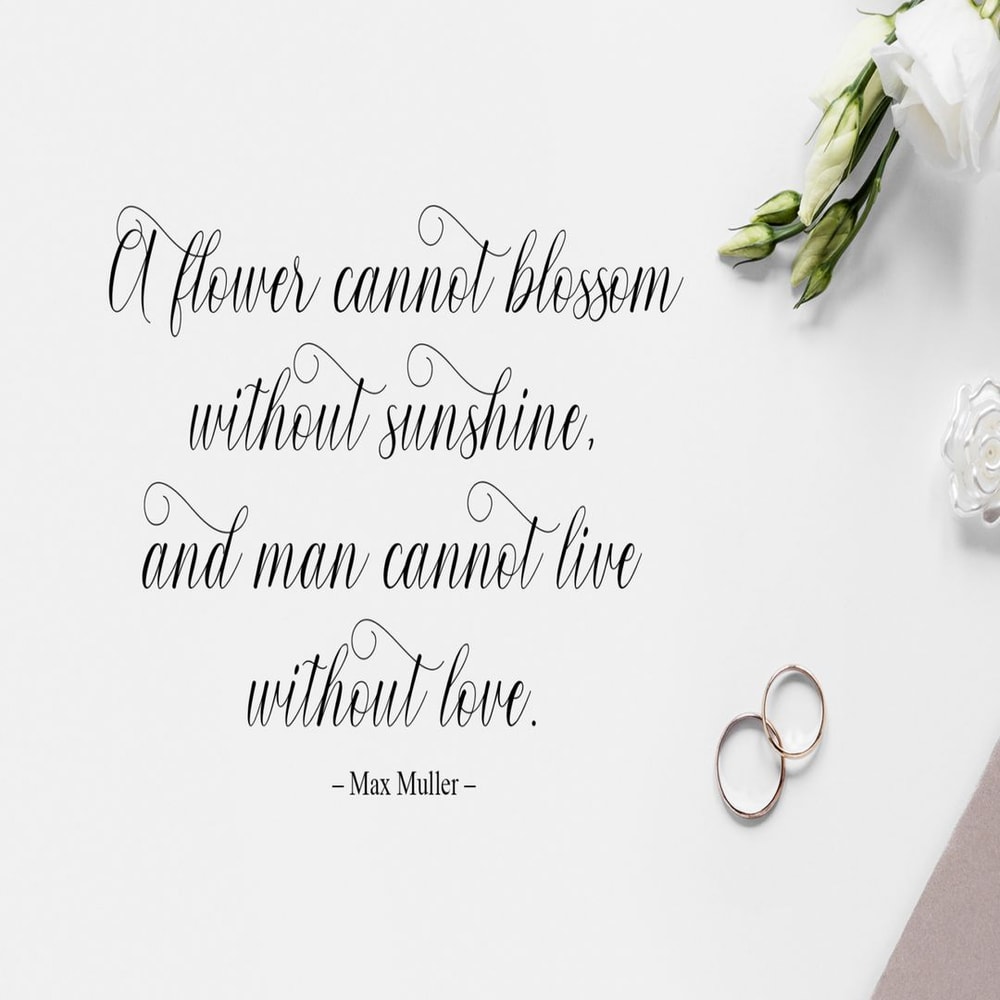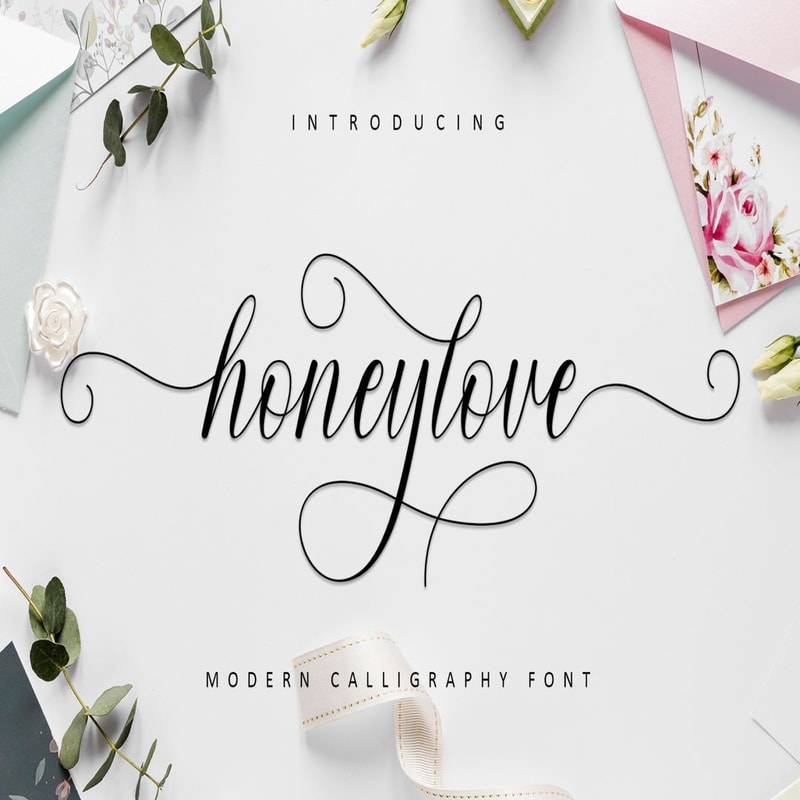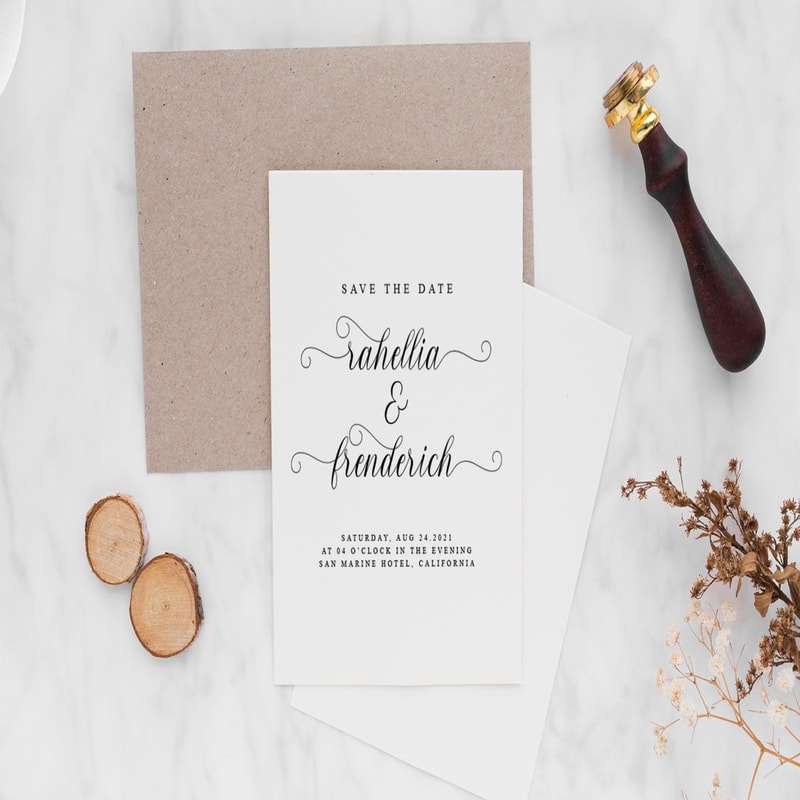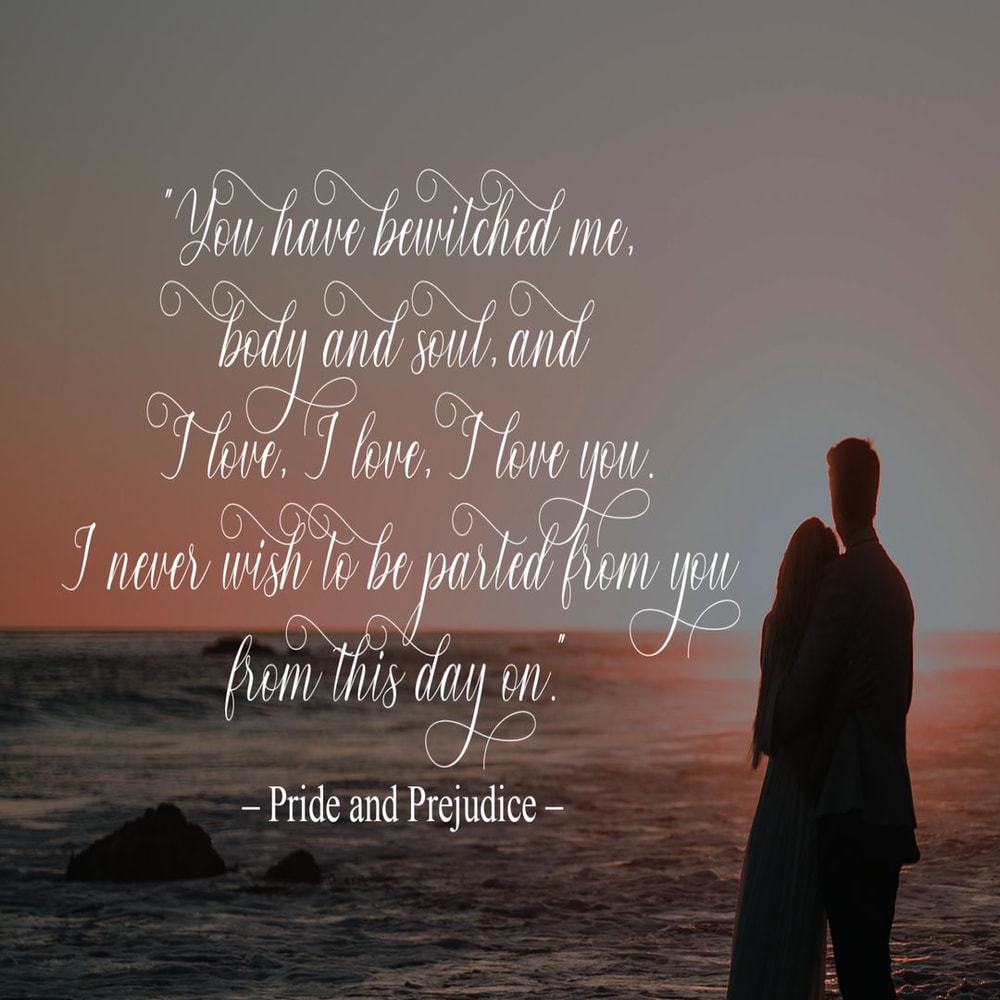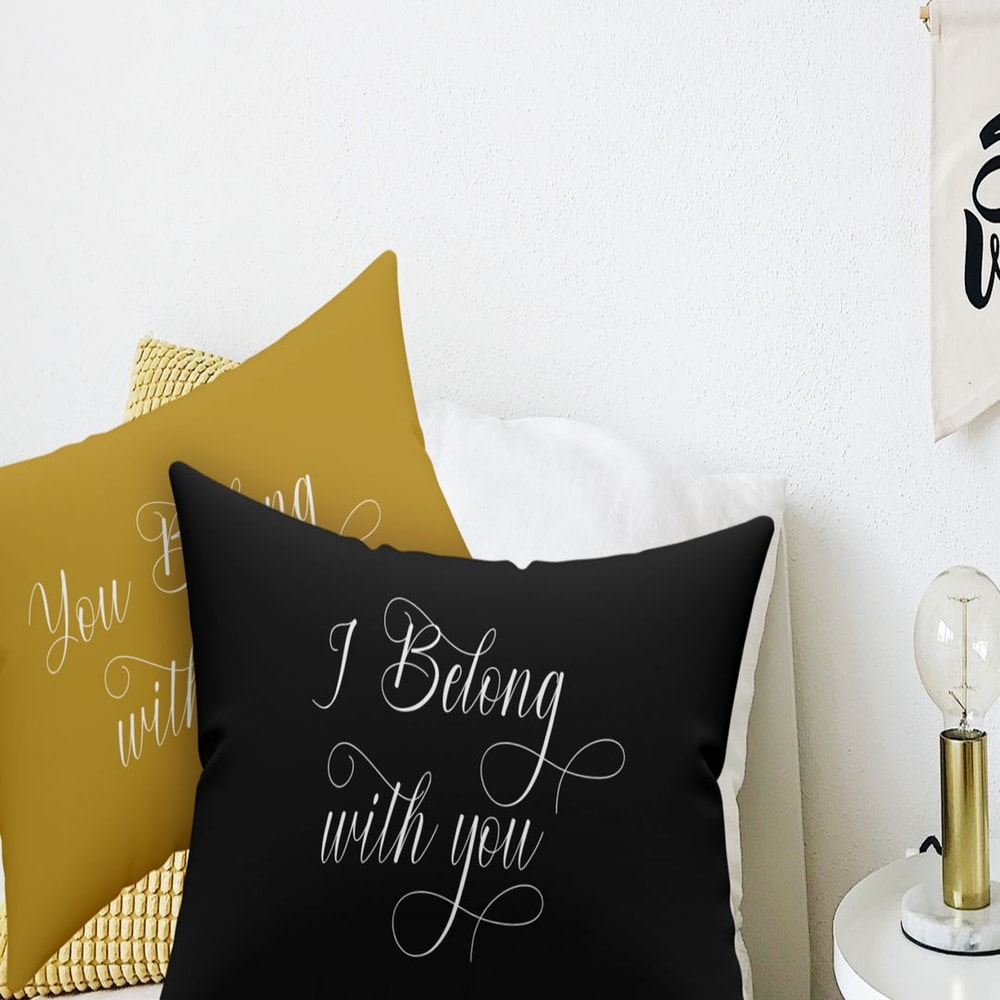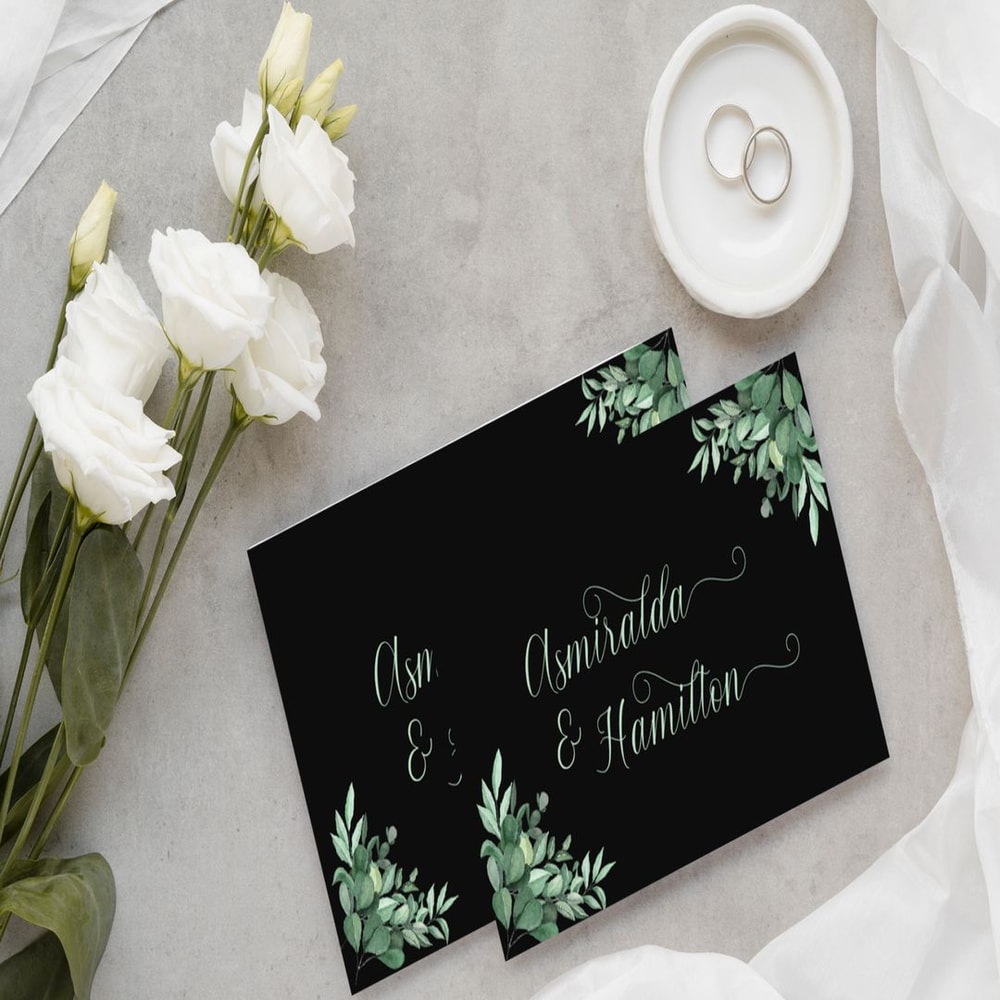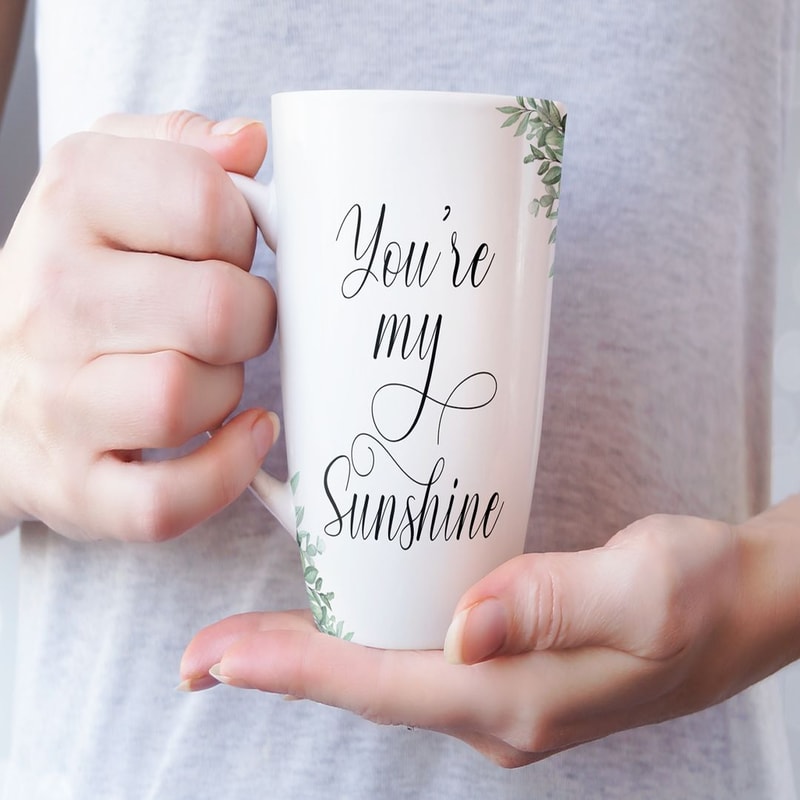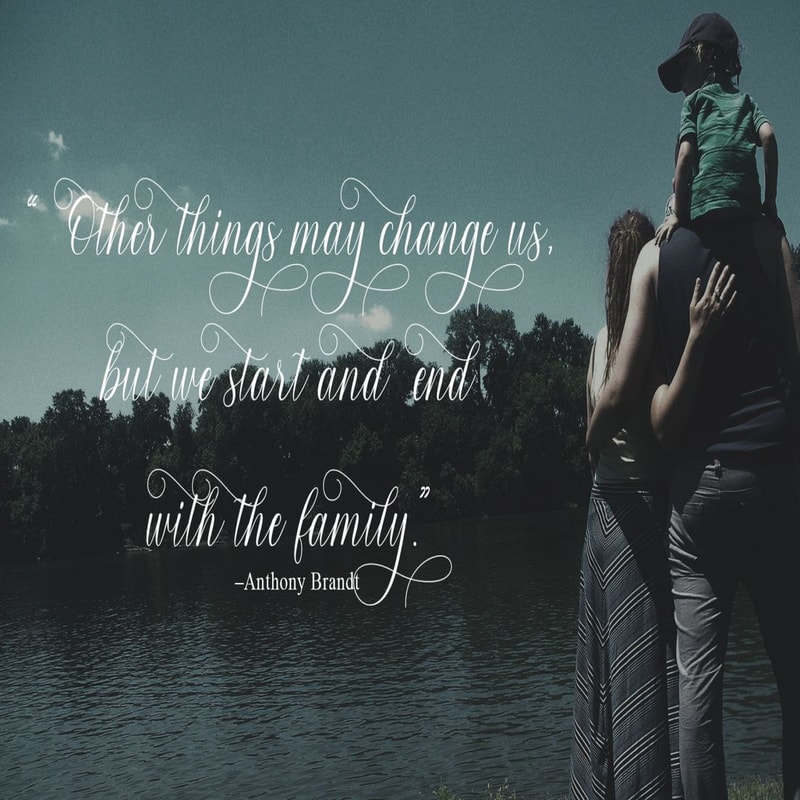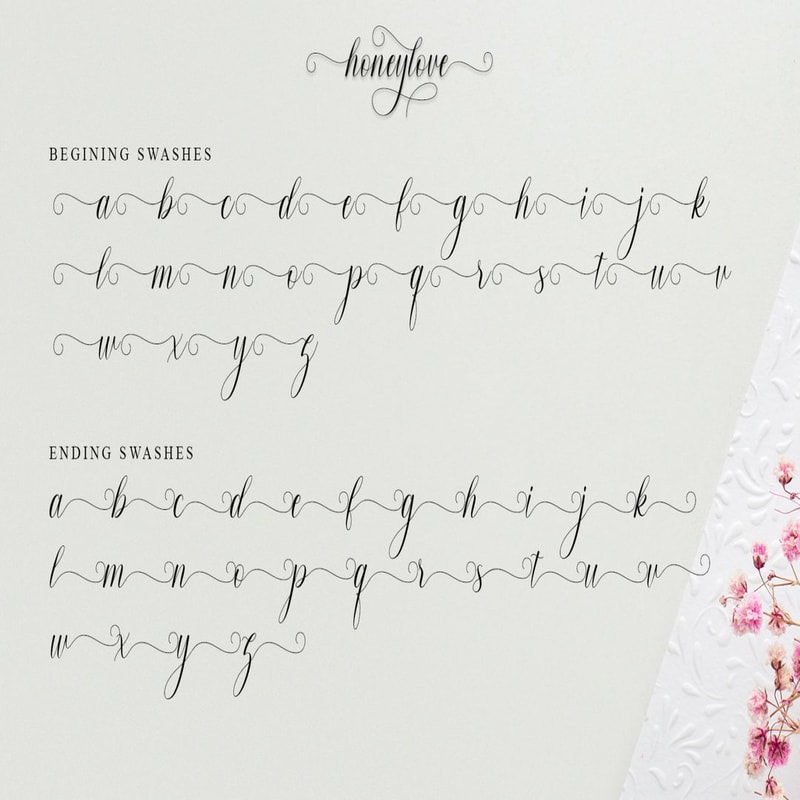
Honeylove Modern Calligraphy Trending Fonts - Digital Font
Honeylove is a cute and modern calligraphy font, which has many beautiful alternates includes beautiful beginning and ending swashes, this font is very perfect for any project such as wedding designs, branding, logotype, branding, social media and product display.